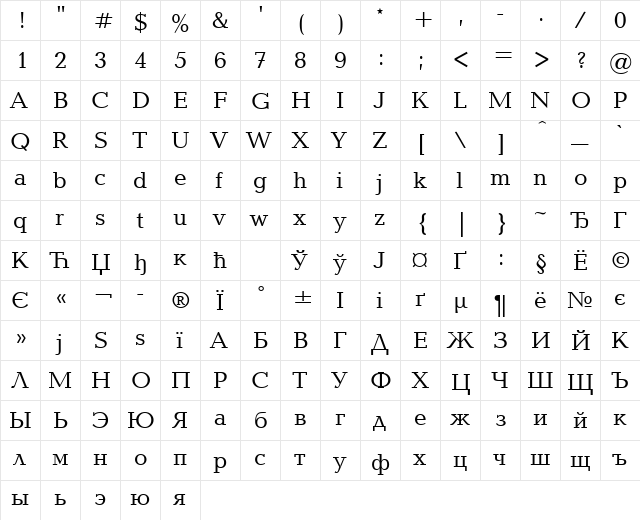
BalticaCTT Regular
Design Context for BalticaCTT Typeface
BalticaCTT takes a measured approach to typography — its balanced proportions and neutral character make it a reliable workhorse for both digital and print work.